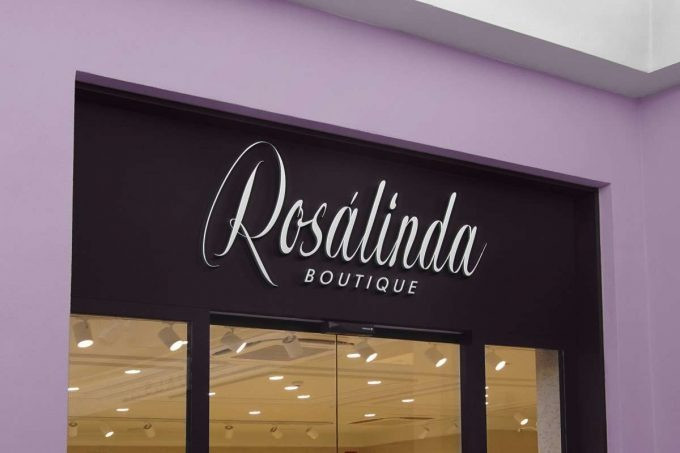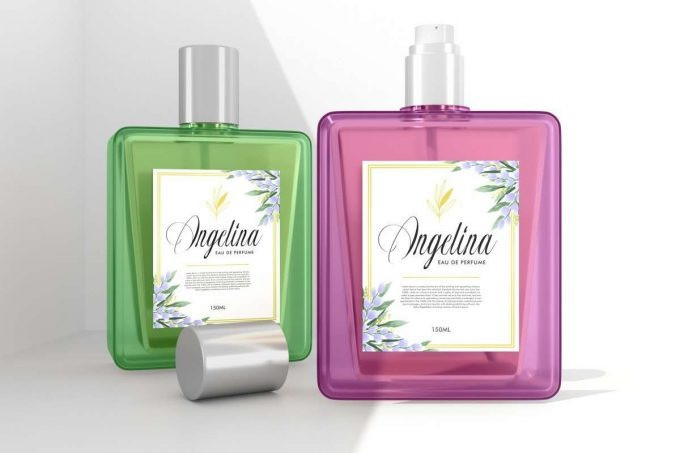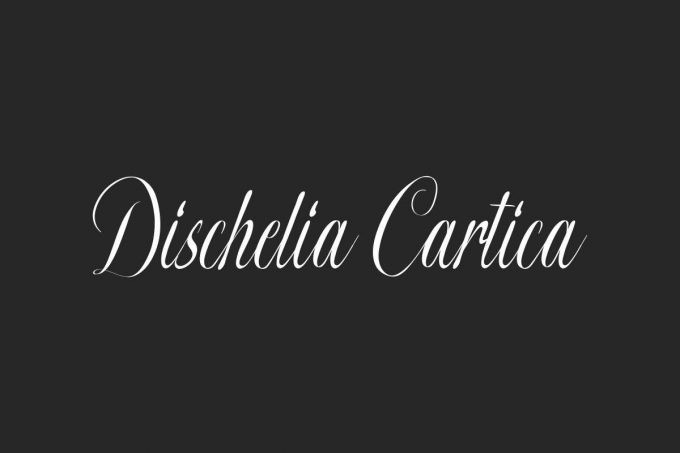
Dischelia Cartica Font
Dischelia Cartica Calligraphy Font is a beautiful calligraphy font. This font has cursive characters that are italicized with thin lines, supported by fire points on certain letters that add a romantic impression. The font will be perfect for many industries, such as author, bakery, boutique, café, even or wedding organizer, fashion, florist, jewelry, perfume, printing, restaurant, spa salon, and more!
Dischelia Cartica Font includes full set of Uppercase and Lowercase Basic Characters, Numerals and Punctuation to make your designs perfect and standout. Use this font to beautify your designs, such as brand logo, box jewelry, cover, headline, labels, packaging design, quote, screen printing, signage, etc.